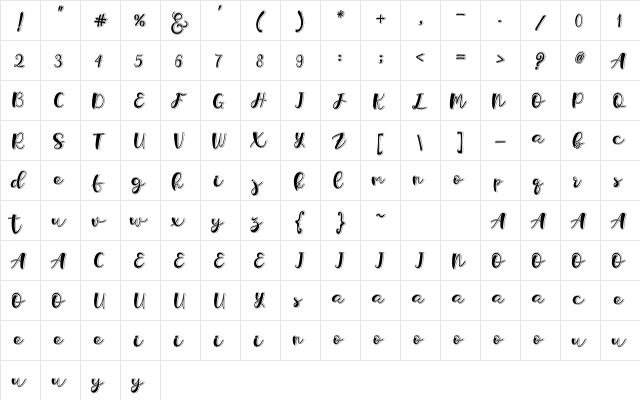
Holligrandina Regular
| Foundry | Kotak Kuning Studio |
Design Context for Holligrandina Typeface
Holligrandina is a composed and adaptable typeface that performs quietly and consistently across a wide range of design contexts.